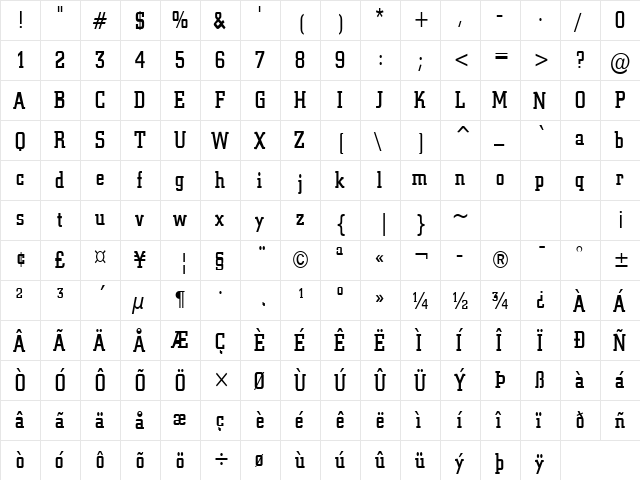
Geo 957-Condensed Normal
Design Context for Geo 957-Condensed Typeface
Geo 957-Condensed is a composed and adaptable typeface that performs quietly and consistently across a wide range of design contexts. The condensed width makes it efficient for tight spaces without sacrificing legibility.